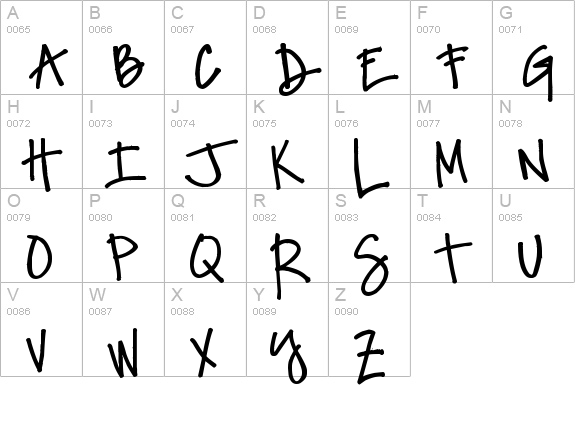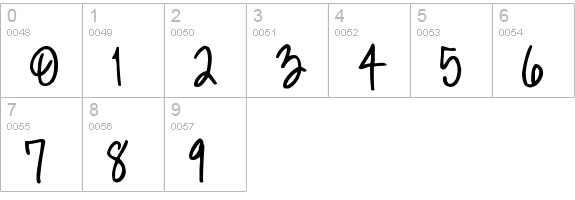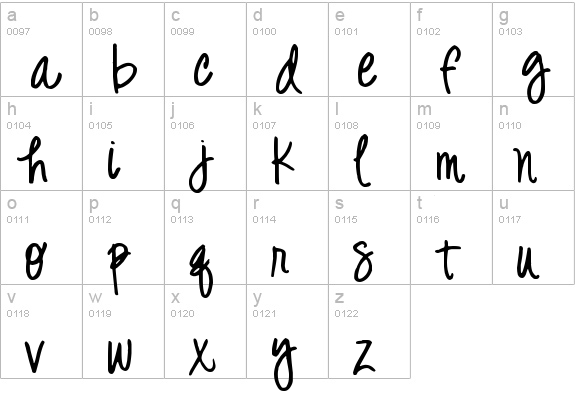
Digs My Hart Font Details
Digs My Hart font is a charming and whimsical typeface that exudes a sense of warmth and playfulness. With its unique handwritten style, this font is perfect for adding a personal touch to your projects. The gentle curves and flowing lines of Digs My Hart make it a versatile choice for a wide range of design applications, from invitations to branding to social media graphics. Best of all, Digs My Hart font is available for free download at FontsMarket.com. This means you can easily add this delightful font to your collection without breaking the bank. Whether you're a seasoned designer looking for a fresh new font or a newcomer in need of a creative boost, Digs My Hart is sure to inspire and delight. Download this lovely font today and let your creativity soar!